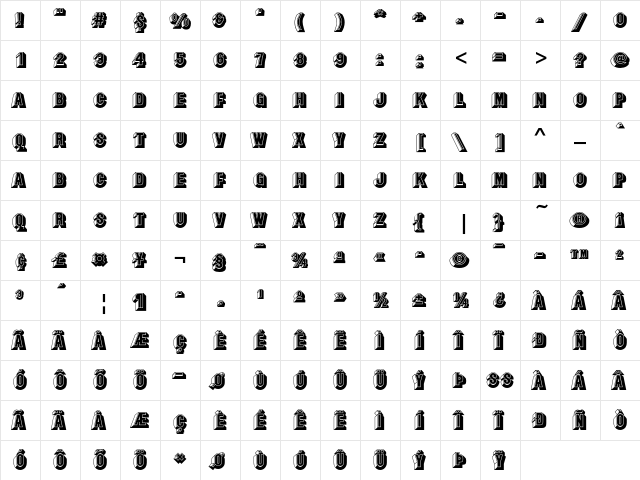
Buxom D Regular Font Preview
Buxom D Regular
Buxom D Regular Font Details
Design Context for Buxom D Typeface
Buxom D is a composed and adaptable typeface that performs quietly and consistently across a wide range of design contexts.